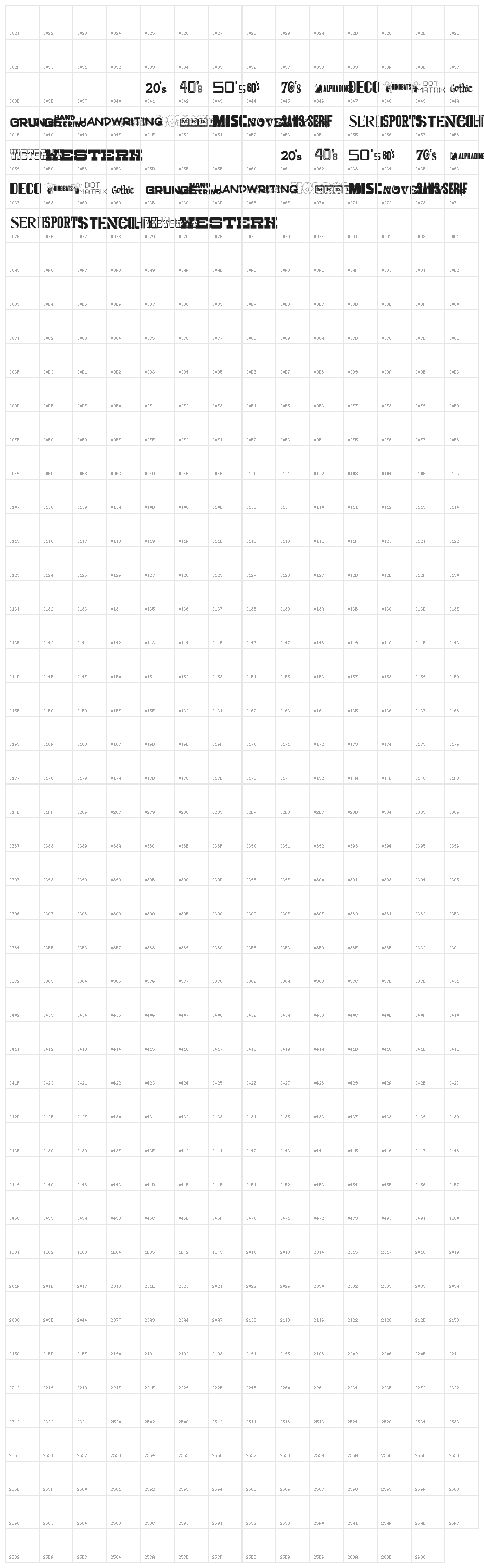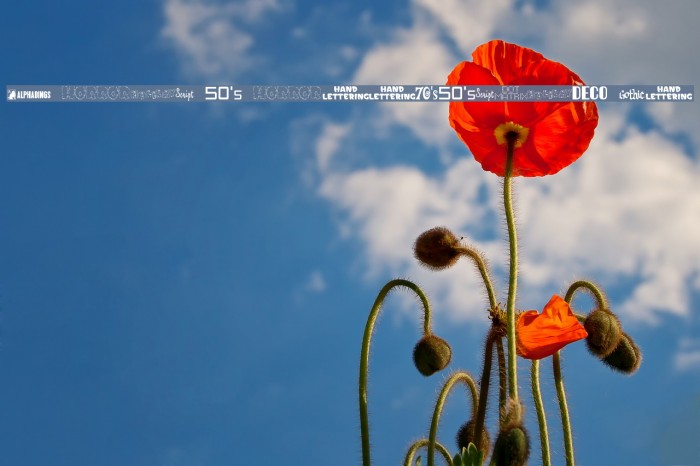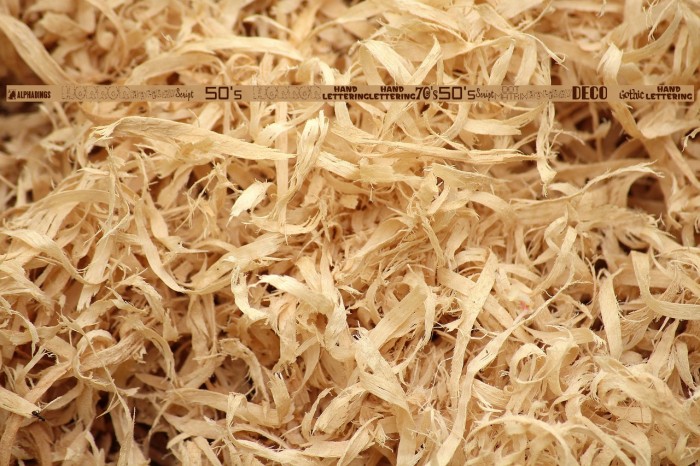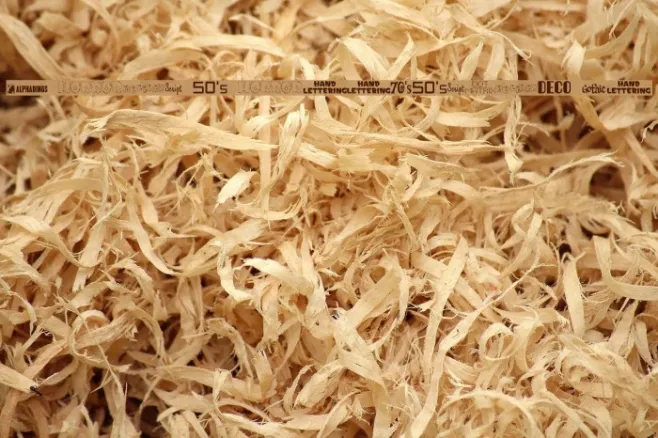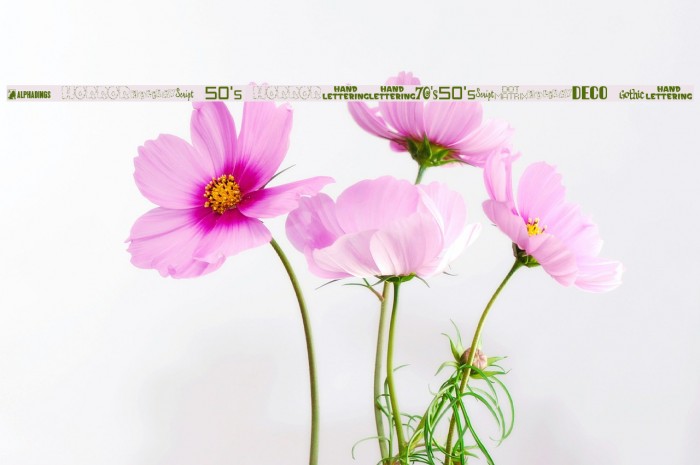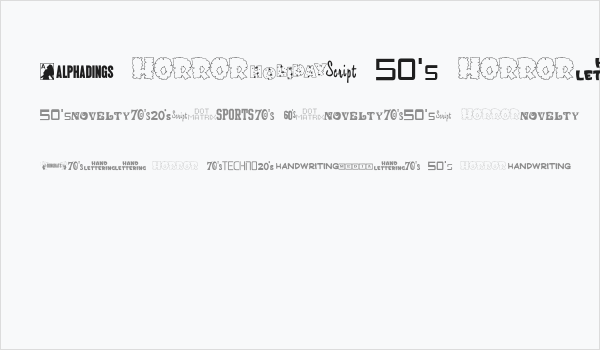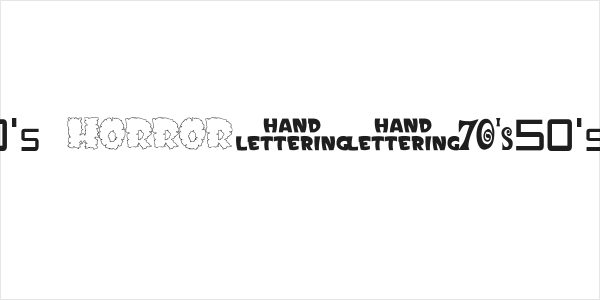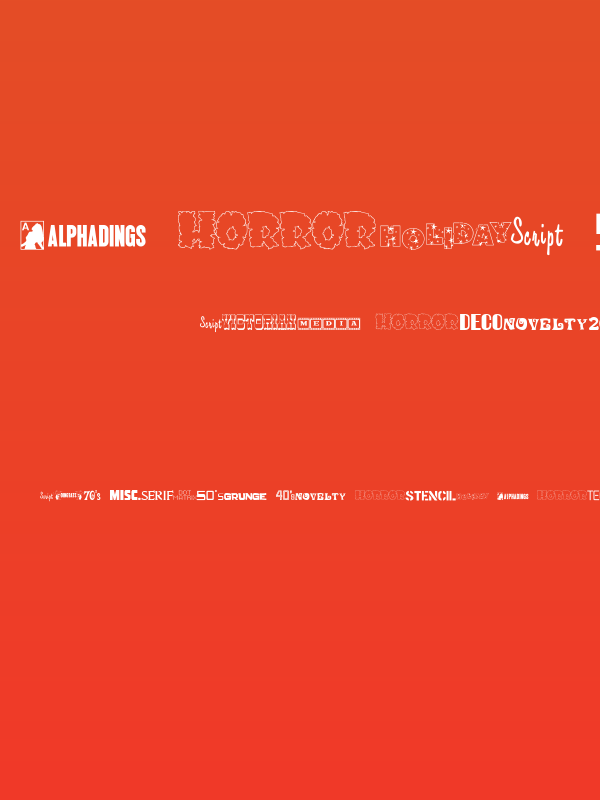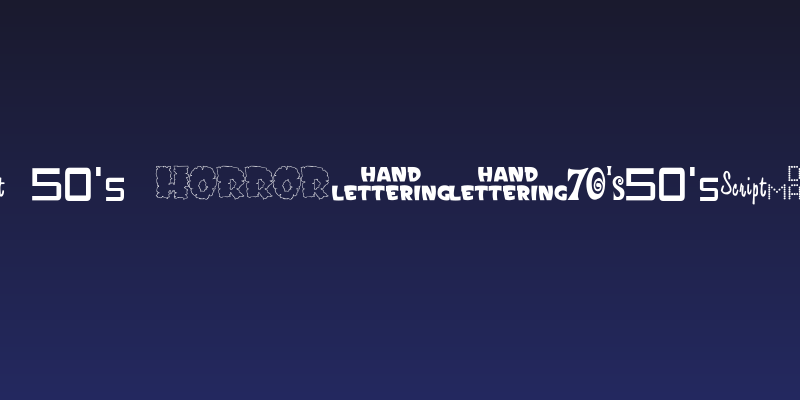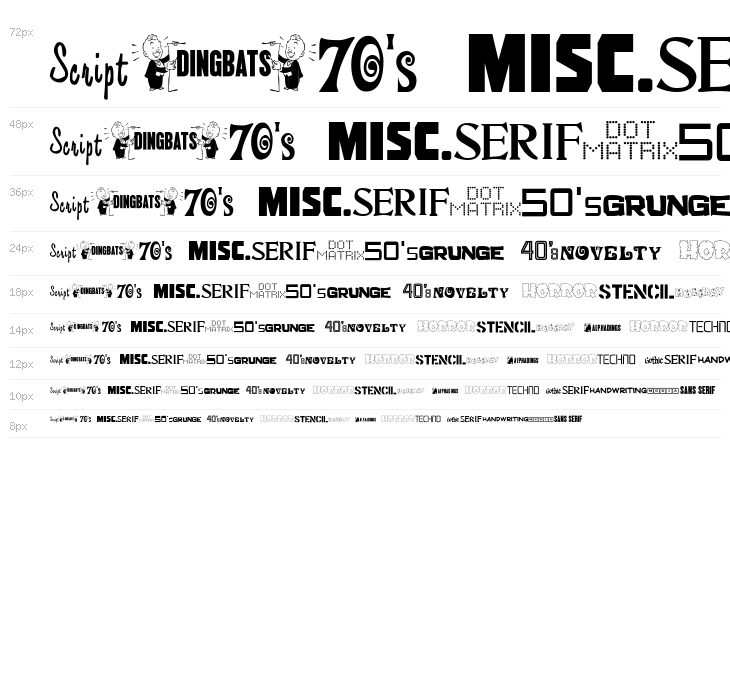
Font Collecting JL Font
Font Collecting JL Description
This image contains a variety of font styles, each representing different eras and design aesthetics. The fonts range from vintage styles like those from the 20s, 40s, and 50s, to more modern and decorative styles such as Deco, Gothic, and Grunge. There are also specialized fonts like Dingbats and Handwriting, which offer unique character and flair. Each font style is distinct, showcasing a wide array of typographic diversity suitable for various design needs.
| Overall Style | Eclectic |
| Use Case | Headlines, Artistic projects, Branding |
| Proposed Projects | These fonts can be used for retro-themed posters, modern graphic design projects, branding, and artistic displays. |